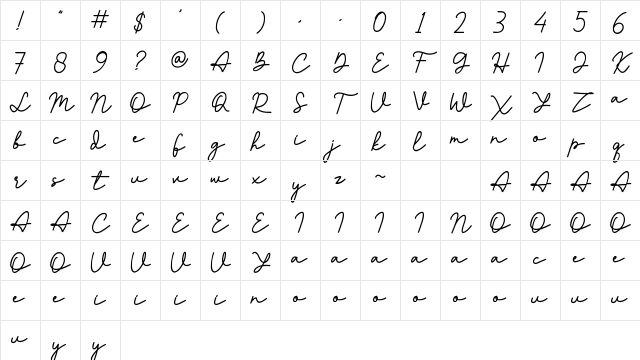
Thea Amelia Regular Free Font
Thea Amelia Regular
Foundry: RantauType
Designer: Yudi Pratama Chandra
Design Context for Thea Amelia
Thea Amelia is a composed and adaptable typeface that performs quietly and consistently across a wide range of design contexts.